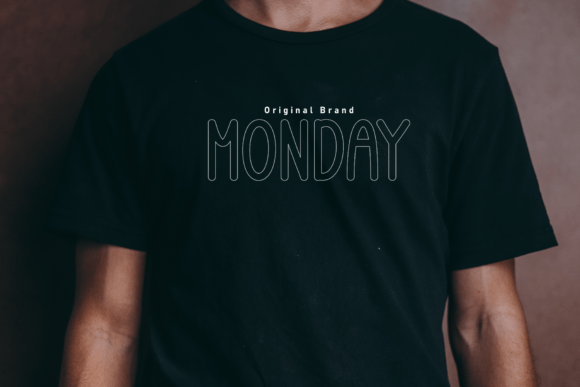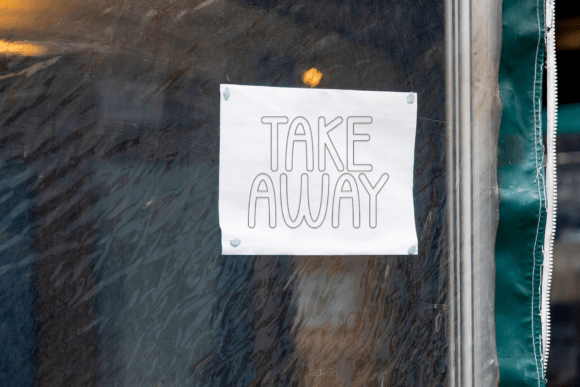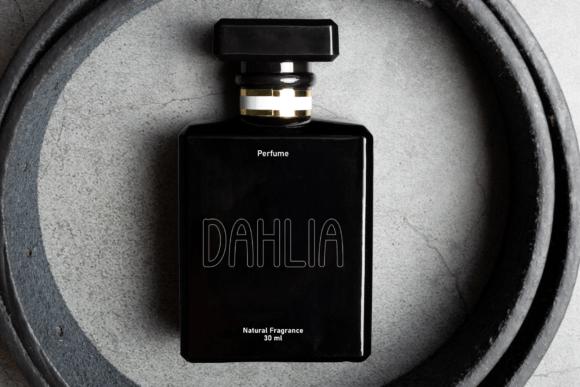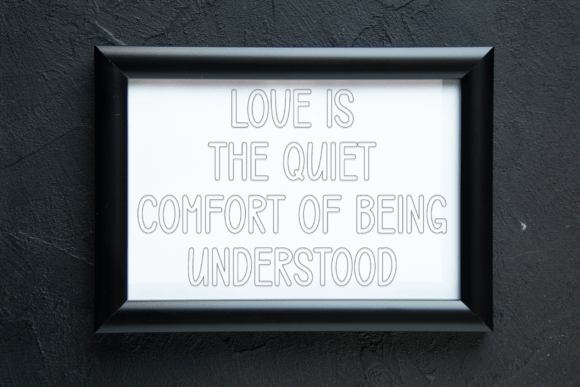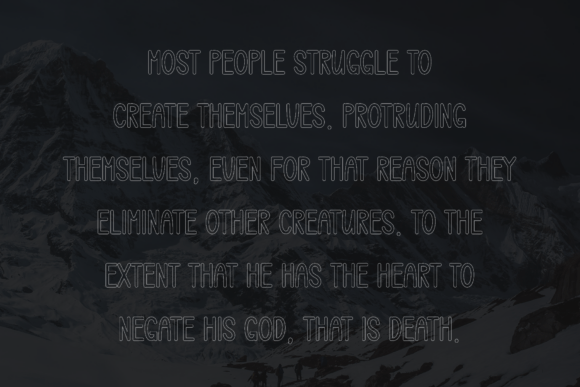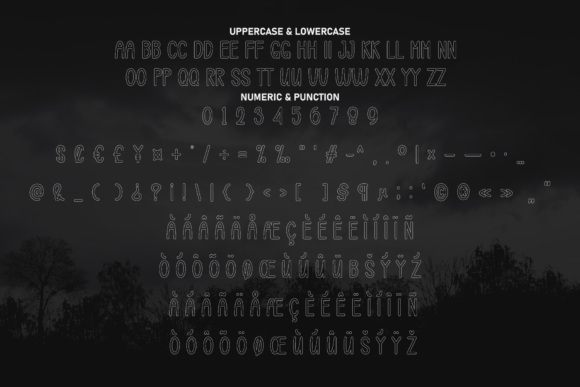
Introduction to Simple Outline Font
As you sit at your desk, surrounded by scraps of paper, paint, and half-finished craft projects, the spark of creativity strikes. You envision a beautiful wedding invitation, a custom greeting card, or a unique design element that will make your project stand out. But, you need the perfect font to bring your vision to life. That’s where our Simple Outline Font comes in – a bespoke typographic gem that adds a touch of whimsy and charm to any creative endeavor.
Key Features of Simple Outline Font
- Unique, hand-drawn design perfect for creative projects requiring a personal touch.
- Perfect for use in logos, icons, graphics, and other design elements where a clean, minimalist aesthetic is desired.
Honest Review: Simple Outline Font
I recently came across the Simple Outline Font, and I must say it’s a great addition to any design resource collection. As a designer, I appreciate high-quality fonts that can elevate a creative project.
One of the standout features of the Simple Outline Font is its versatility. It can be used for a variety of purposes, from headings to body text, and its transparent background makes it easy to overlay on images or other design elements.
- ⚠️ Limited character set, which may not be suitable for longer blocks of text
- ⚠️ May not be as readable at smaller font sizes
Overall, I’m impressed with the Simple Outline Font. It’s a great design resource that can add a touch of elegance to any creative project. With its high-quality design and transparent background, it’s definitely worth considering for your next design project.
Simple Outline Font: A Versatile Design Resource
The Simple Outline Font is ideal for creating high-quality designs for various projects, including logos, infographics, and presentations. Its transparent background feature makes it perfect for designs that require a seamless integration with other elements.
To get the most out of the Simple Outline Font, experiment with different font sizes, colors, and styles. You can also combine it with other design resources, such as icons and graphics, to create a unique and engaging design. The free download option makes it an excellent resource for designers on a budget.
Comparison: Open Sans Outline is more versatile than Simple Outline Font, with a wider range of font weights and styles available. However, Simple Outline Font has a more playful and whimsical feel that may be better suited for children’s books or educational materials.